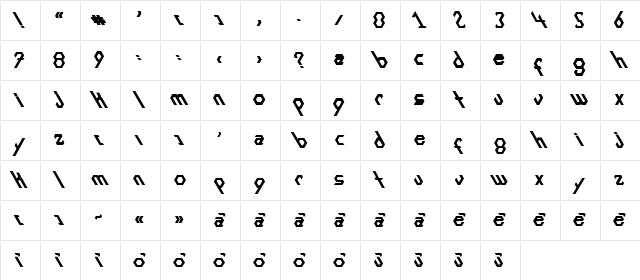
Exans Bold
| Foundry | MarioMacca |
| Designer | Mario Macca |
Design Context for Exans Typeface
Exans is a composed and adaptable typeface that performs quietly and consistently across a wide range of design contexts. Its bold stroke weight gives it real presence on the page.